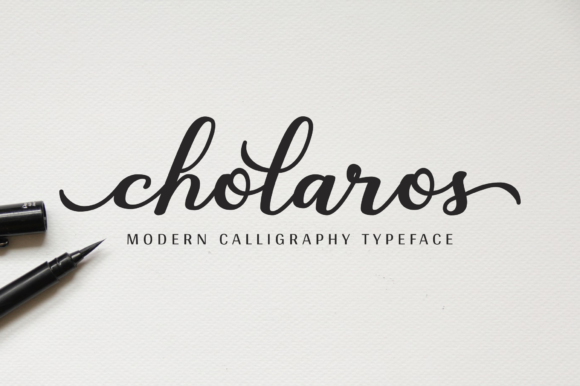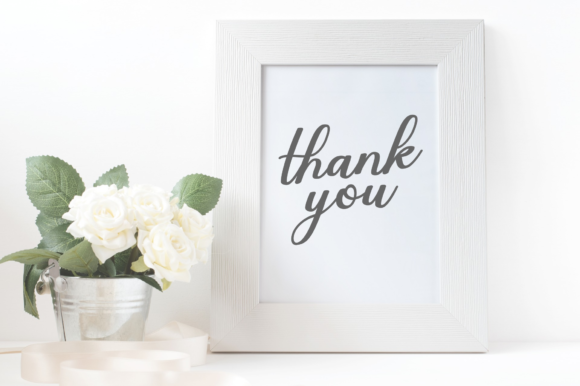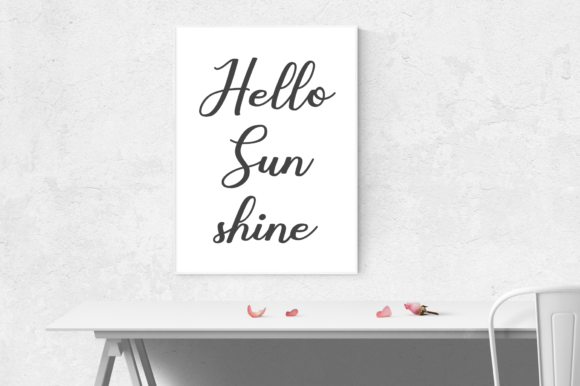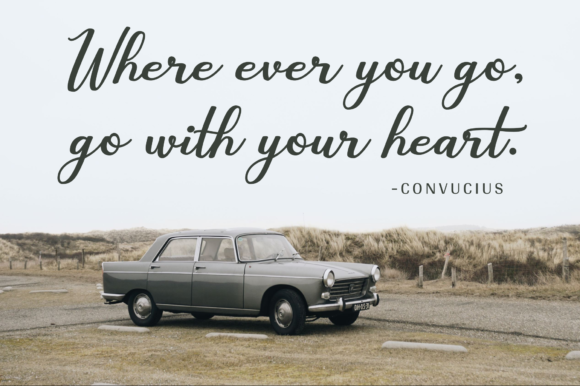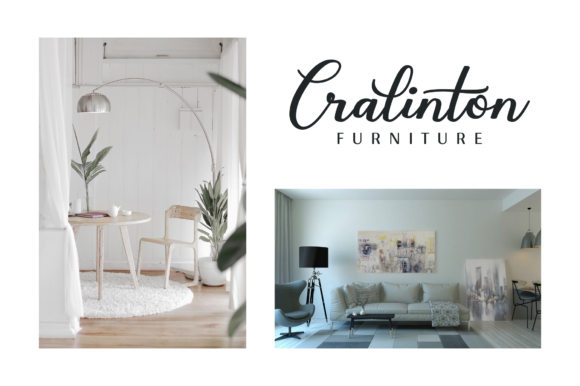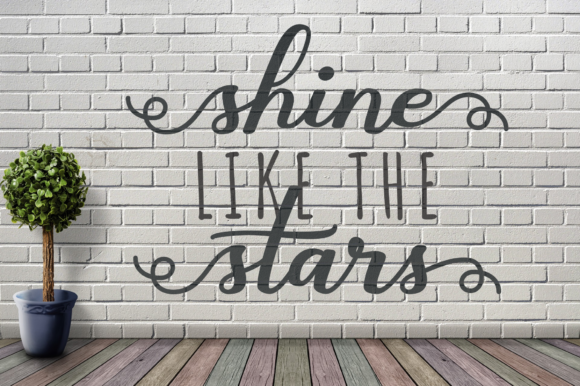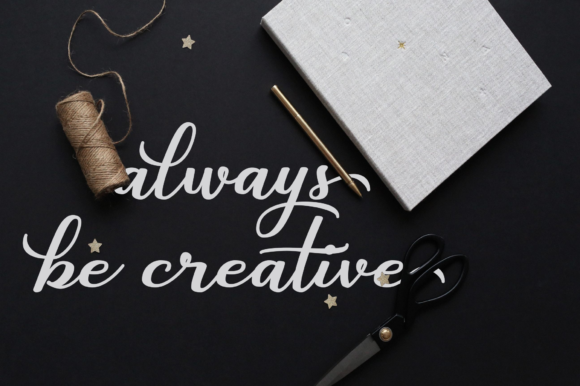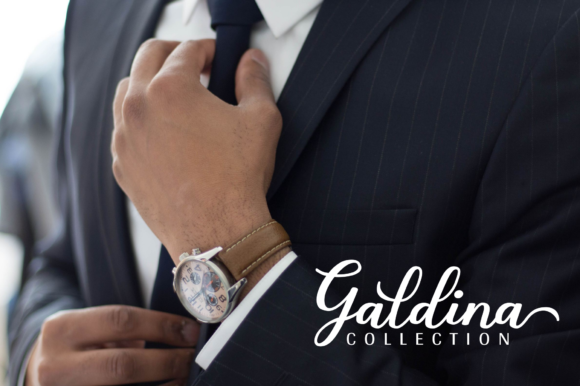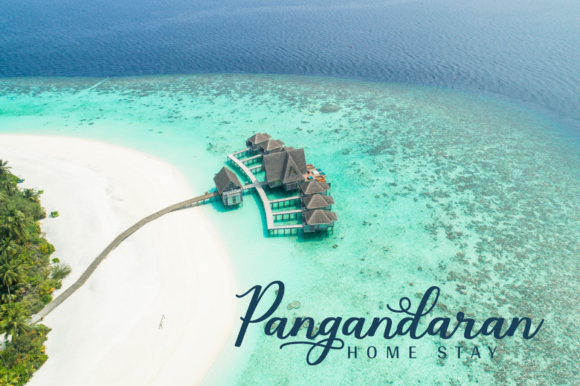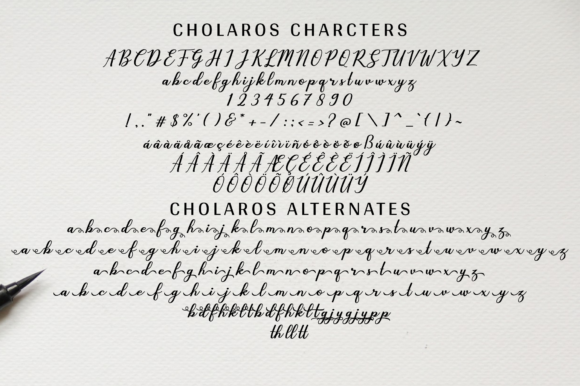
HomeScript FontsCholaros Font Script Fonts Cholaros Font FacebookXPinterestWhatsApp Cholaros Font Poster 2 Cholaros Font Poster 3 Cholaros Font Poster 4 Cholaros Font Poster 5 Cholaros Font Poster 6 Cholaros Font Poster 7 Cholaros Font Poster 8 Cholaros Font Poster 9 Cholaros Font Poster 10 About Cholaros Font Cholaros is a bold calligraphy font with a unique, modern style. Get inspired by its authentic feel! DOWNLOAD ON CREATIVE FABRICAThis font is sold and delivered by Creative Fabrica. Font Canyon may earn a commission if you buy through this link. People also explored Goldstone Font Wedding Date Font Capacity Font Bodoni Terracina Redhank Kloren Rounded Font Melathy Font Wedding Story Font Moon Fighter Font 375 0 TagsCholaros Font Previous articleRomantisch FontNext articleAngelita Font LEAVE A REPLY Cancel reply Comment: Please enter your comment! Name:* Please enter your name here Email:* You have entered an incorrect email address! Please enter your email address here Website: Save my name, email, and website in this browser for the next time I comment. Personal Use Free True Love Personal Use Free Read more about this font Cline Personal Use Free Read more about this font Super Discount Personal Use Free Read more about this font Cintya Personal Use Free Read more about this font BLOG Free vs Paid Fonts: Why Investing in Premium Fonts Is Worth It Free vs Paid Fonts: Why Premium Fonts Are Worth It in 2025 The debate of free vs paid fonts continues in the design world. While... How to Cut Any Font on Cricut: Convert a Font to SVG (Free) Top 7 Google Fonts Alternatives for Faster and Privacy-Friendly Web Design (2025) The 10 Best Handwriting Fonts to Add Personality to Your Designs